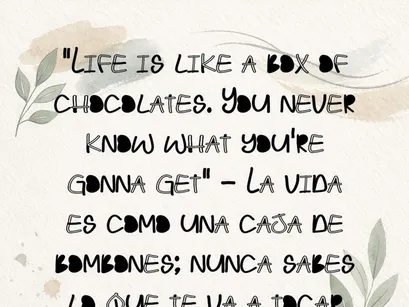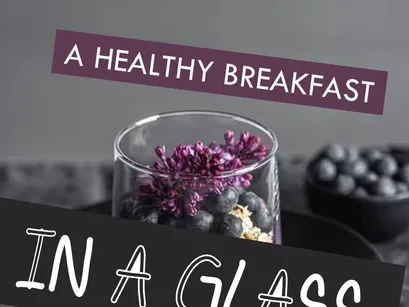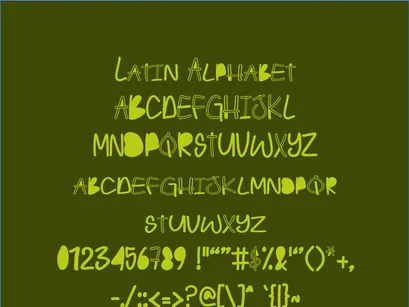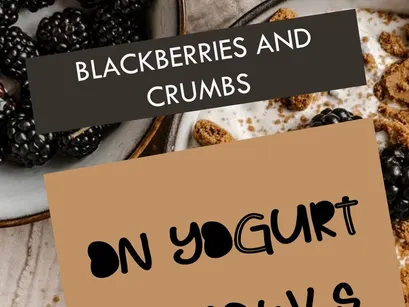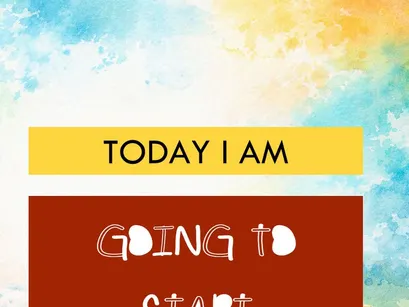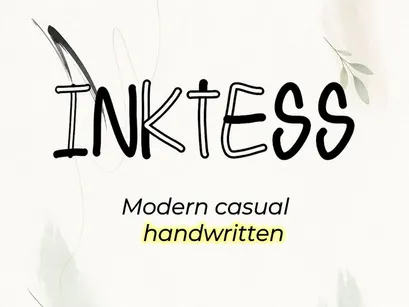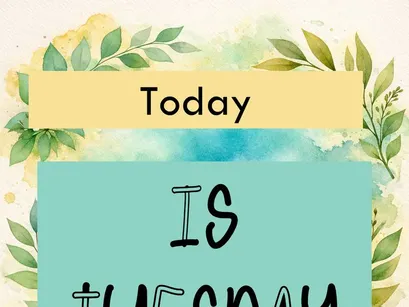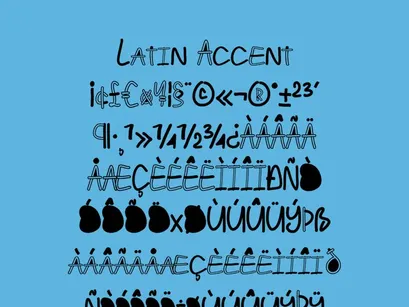
INKTESS is a handcrafted typeface with a modern, natural spirit. Its irregular, expressive strokes evoke the look of marker or brush lettering, making it ideal for creative projects, agendas, planners, covers, and inspirational quotes.
Each character retains the texture of authentic hand-drawn scribbles, adding personality and warmth to your designs.
Style: Modern casual handwritten
Full uppercase and lowercase character sets
Support for accents and Latin characters
Perfect for headlines, branding, packaging, and digital lettering